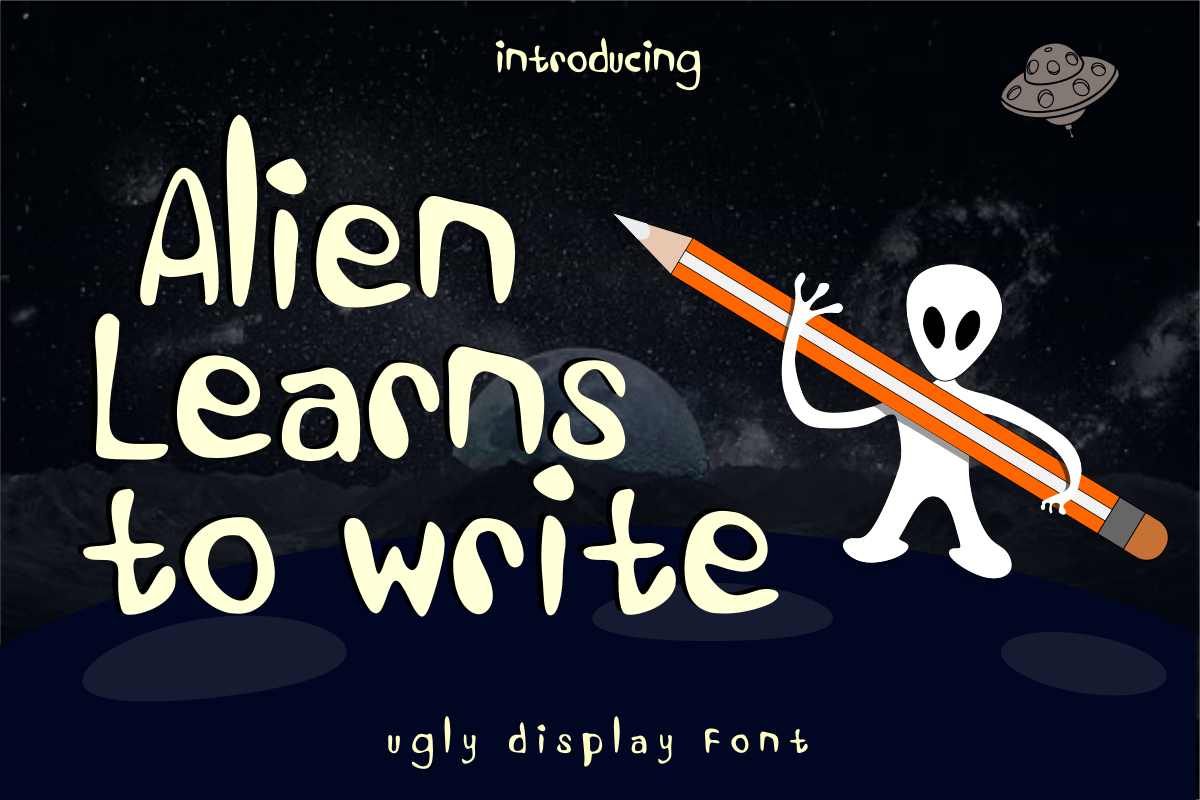
Alien Learns To Write
Alien Learns To Write is an ugly, fun and quirky display typeface that will add a unique feel to your crafting project!
Multilingual accents